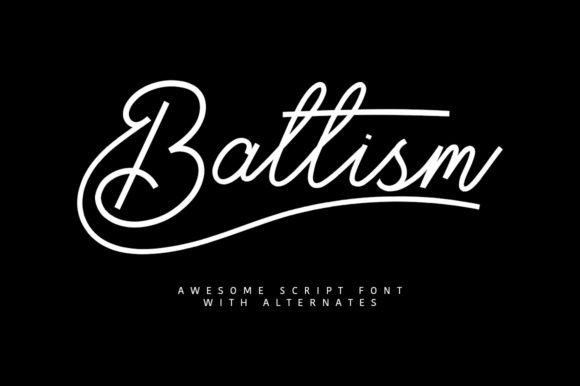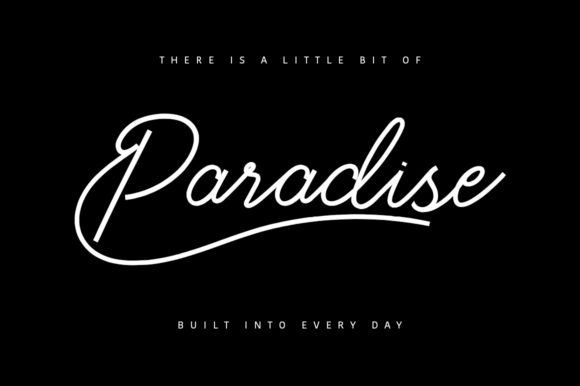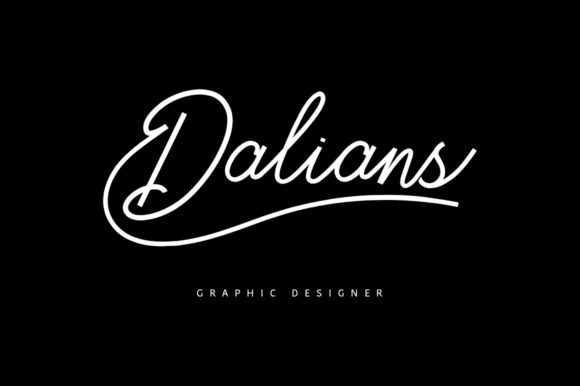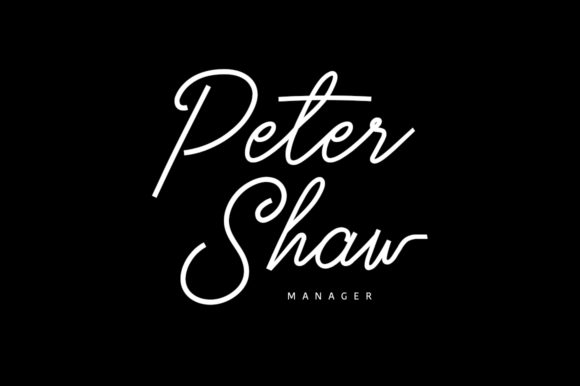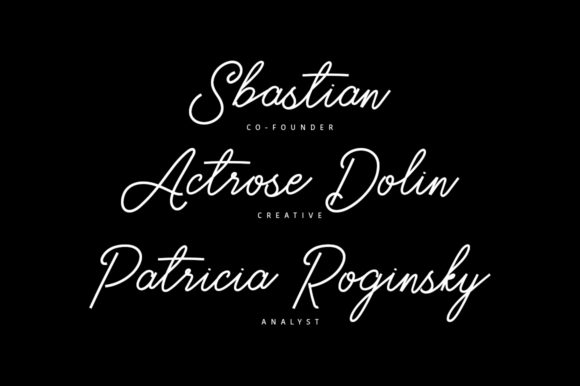
About Baltism Font
Baltism is a distinct, elegant script font that blends traditional influences into a contemporary aesthetic. It is perfectly suited for signature, stationery, logo, typography quotes, magazine or book cover, website header, clothing, branding, packaging design and more.